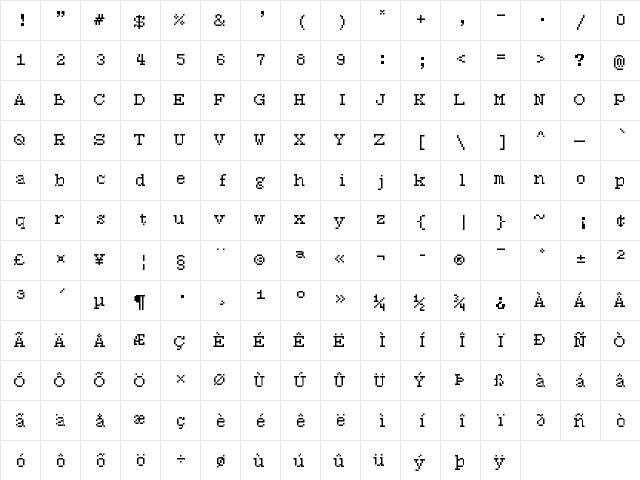
7:12 Serif Regular
| Designer | CMunk |
Design Context for 7:12 Serif Typeface
7:12 Serif brings classic typographic sensibility to the table — its serifs and measured letterforms reflect centuries of print heritage.
Pro Tip: Use 7:12 Serif for editorial body copy and considered headline work. Pair with a neutral sans for UI elements or captions to create a classic hierarchy.